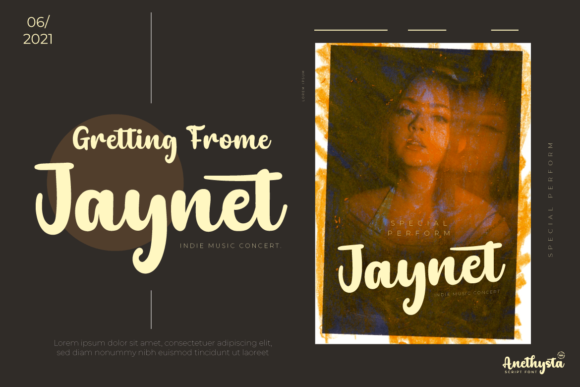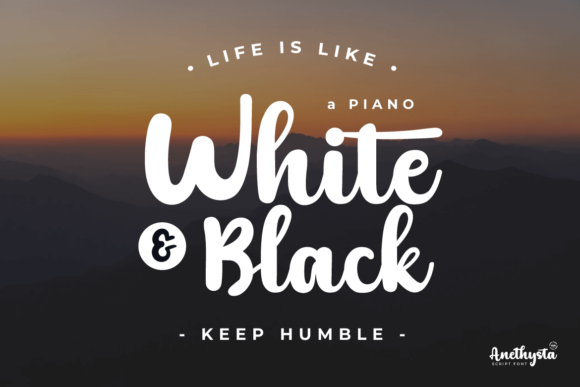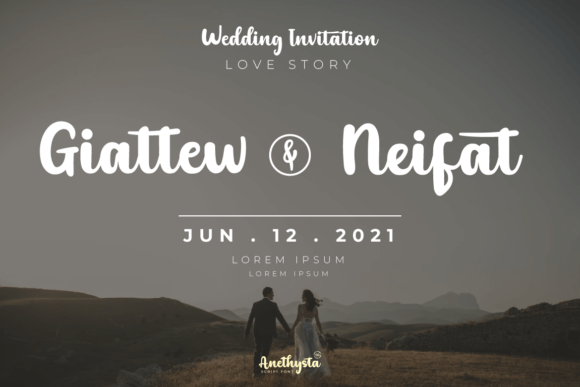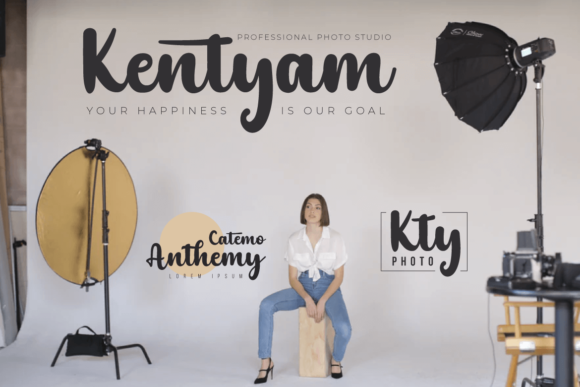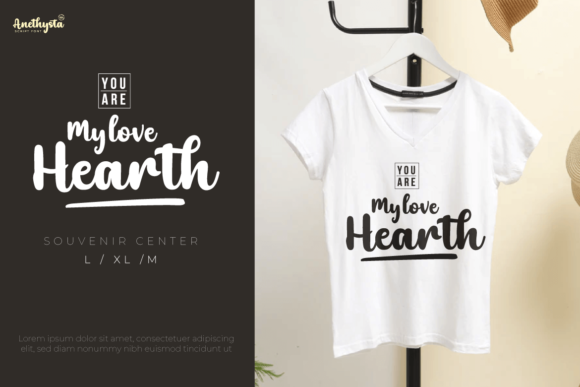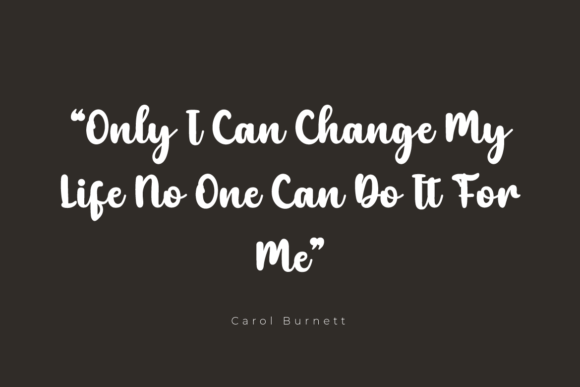
Introduction to Anethysta Font
Enter the Anethysta Font, a stunning and bold handwritten font that’s sure to capture your heart and elevate your design game. With its strong, confident, and dynamic feel, Anethysta Font is the perfect addition to any high-quality design resource, adding a touch of nostalgic character that’s sure to make your projects stand out. Whether you’re working on a free download or a paid project, this font is a valuable resource that’s sure to impress.
Key Features of Anethysta Font
- High-quality, elegant script font ideal for creative projects requiring a touch of sophistication.
- Unique characteristics include swashes, flourishes, and subtle texture, adding depth and visual interest to designs.
Honest Review: Anethysta Font
I recently had the chance to work with the Anethysta Font for a creative project, and I must say it’s been a pleasant experience. The font is a high-quality design resource that offers a unique aesthetic perfect for various design applications.
- Unique Style: The font’s distinctive style makes it perfect for designers looking to add a touch of elegance to their creative projects.
Overall, I’m impressed with the Anethysta Font’s quality and versatility. While it may have some limitations, it’s still a valuable design resource for creative projects. If you’re looking for a unique and high-quality font, I’d definitely recommend giving it a try.
The Anethysta Font is ideal for:
- Artistic and creative projects
- Any design project that requires a touch of sophistication and elegance